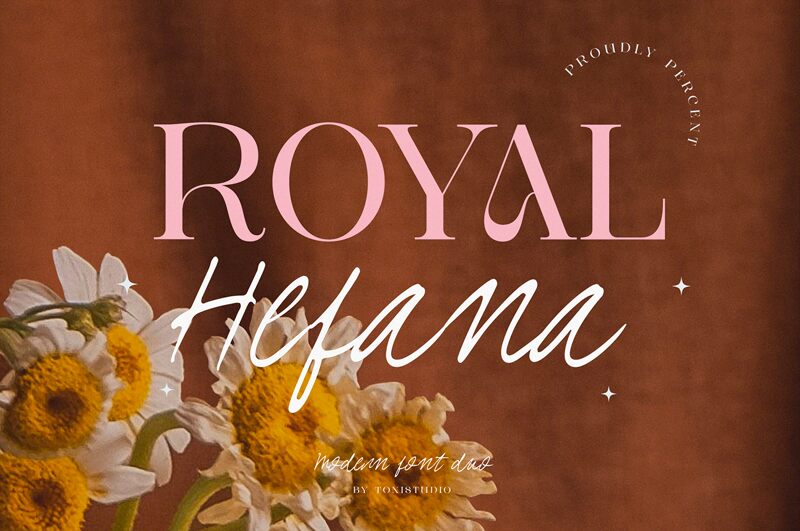
ROYAL Hefana
ROYAL Hefana font by ToniStudio is an elegant and sophisticated serif typeface that seamlessly marries subtle curves with a classic design. It offers a traditional feel with a modern touch, making it versatile and timeless. Its charm lies in its graceful form and refined aesthetics.
This free serif font is an excellent choice for branding projects, logos, magazine covers, product packaging, business cards, invitations, book covers, advertising materials, promotional graphics, website headers, and social media content.